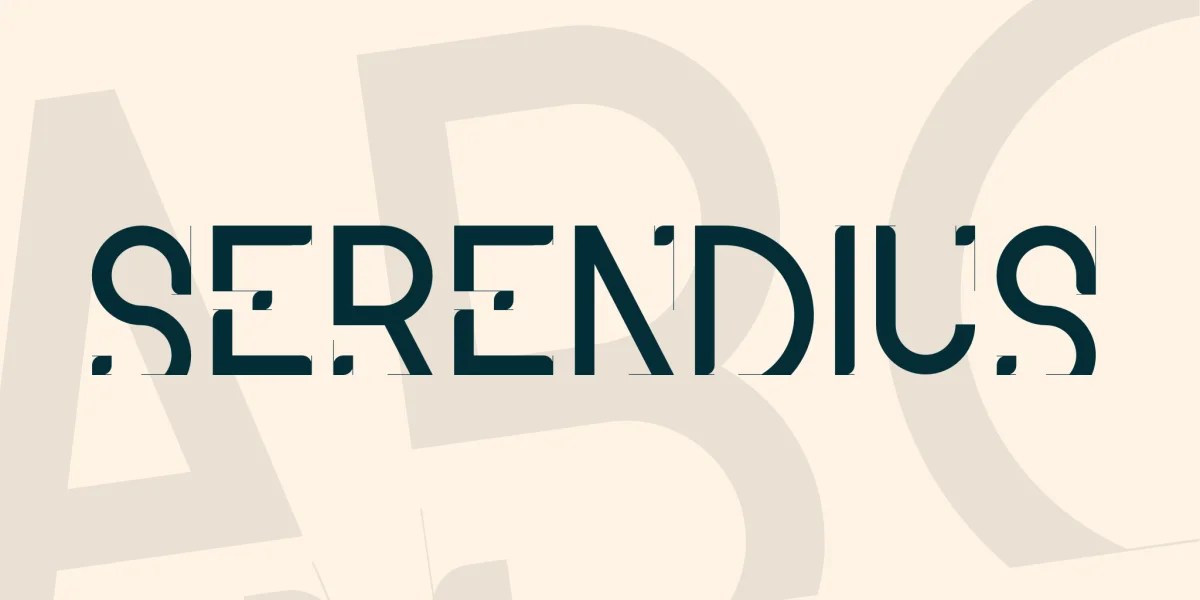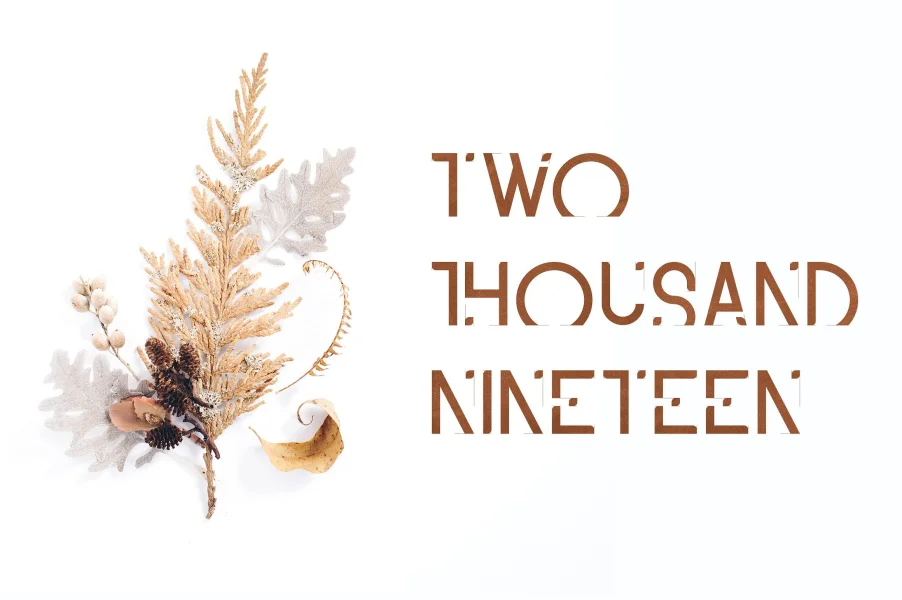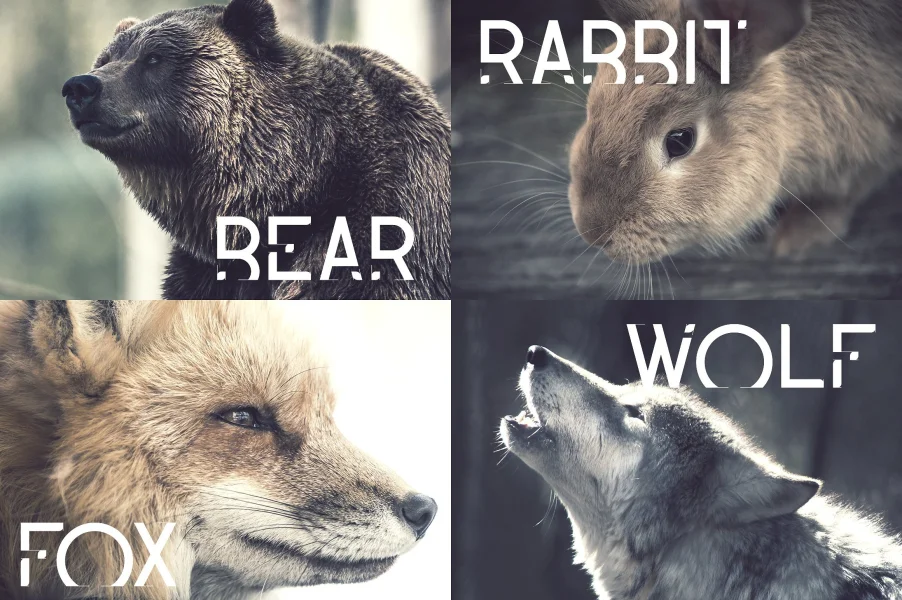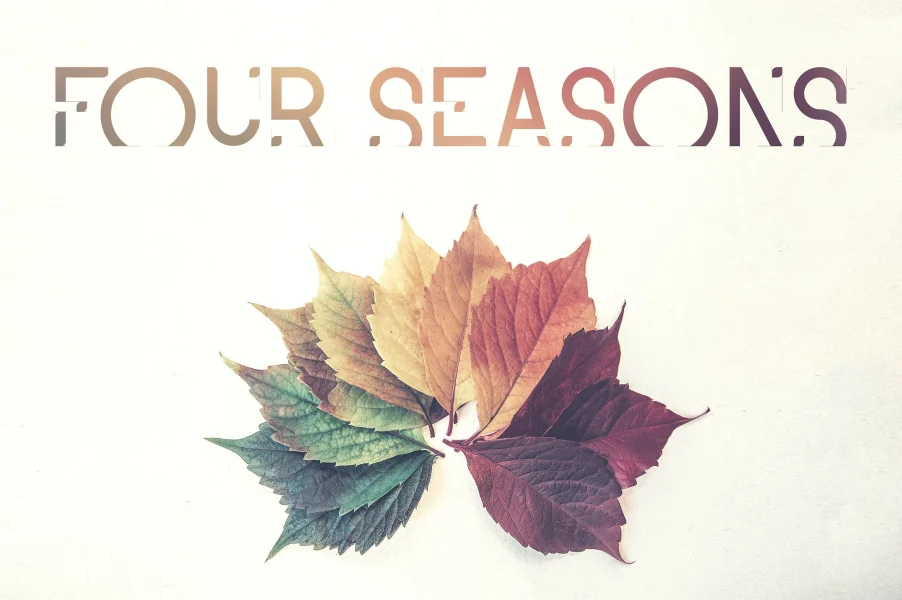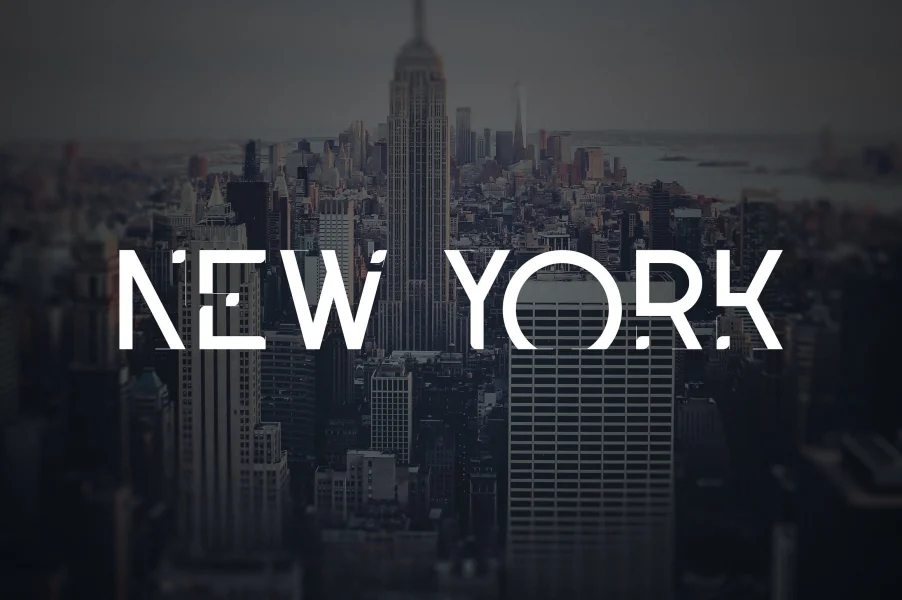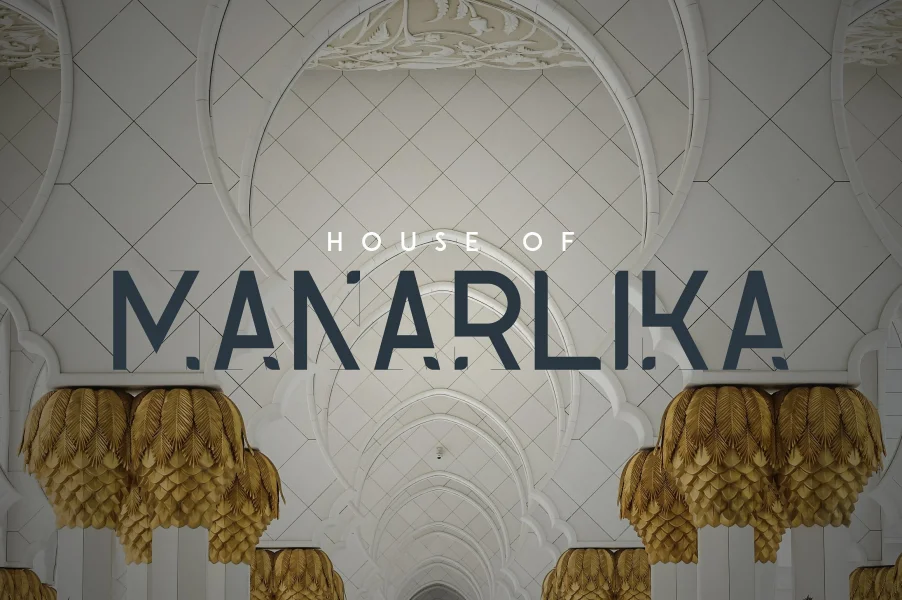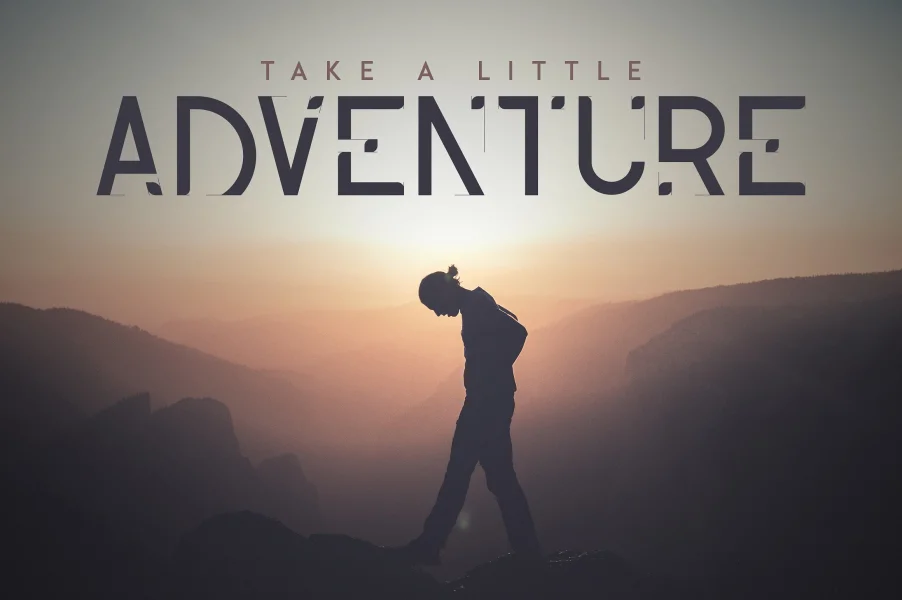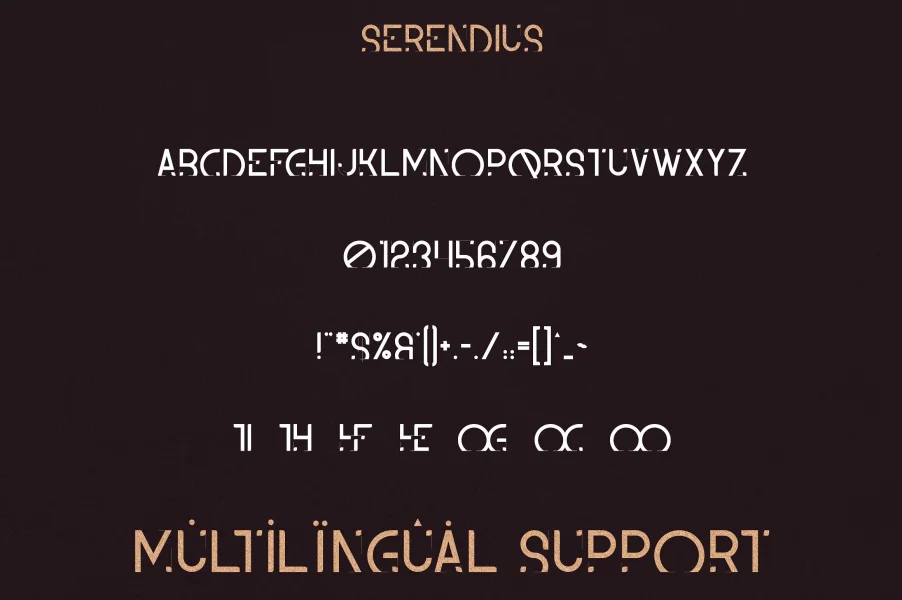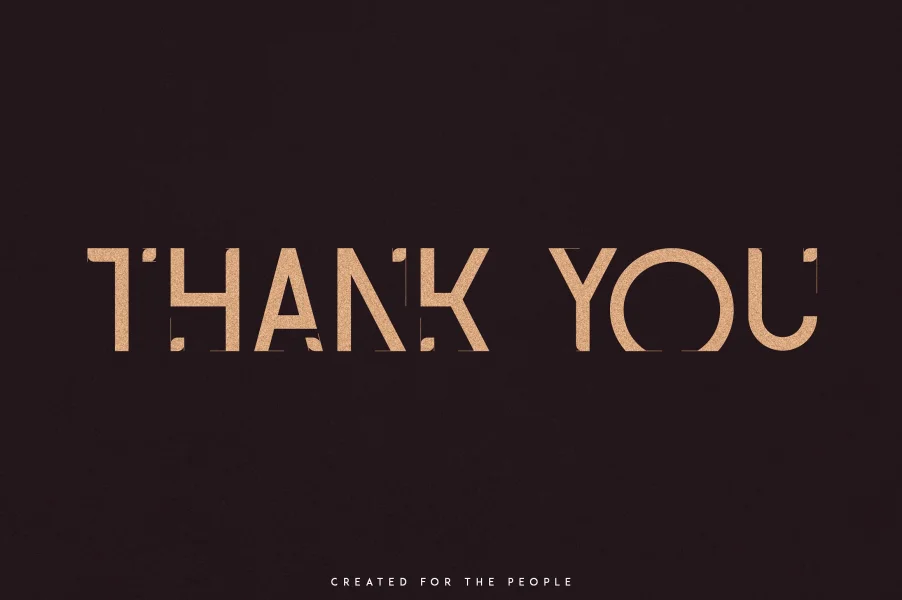
Serendius is elegant, odd font with ligature glyphs and multilingual support. It's a very versatile font that works great in large and small sizes.
Serendius is perfect for branding projects, home-ware designs, product packaging, magazine headers - or simply as a stylish text overlay to any background image.